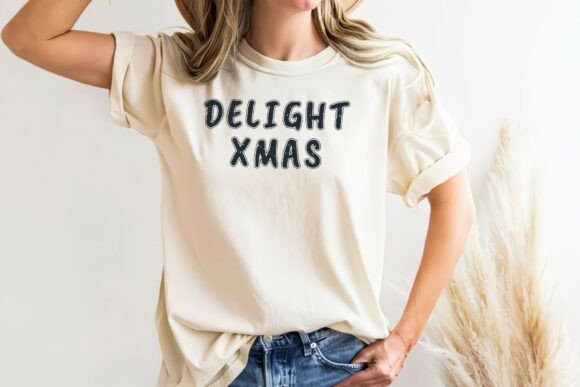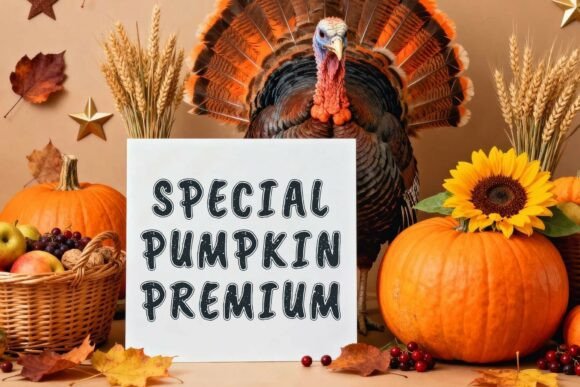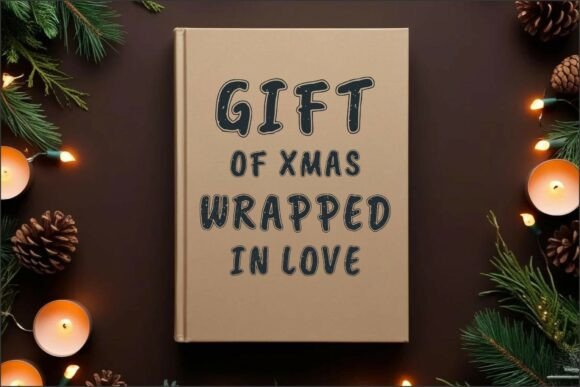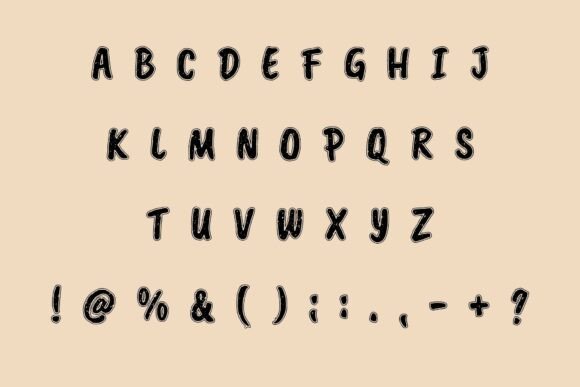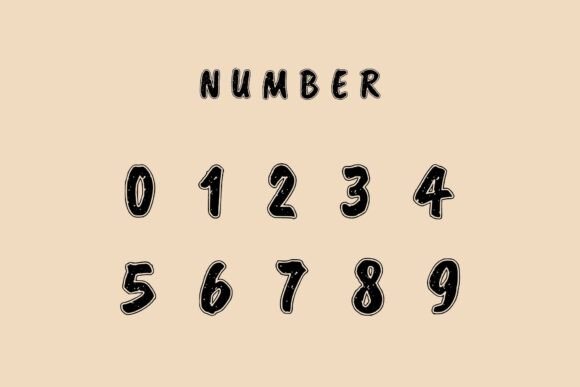
Introducing Cheerful Gliter Font: The Perfect Blend of Whimsy and Warmth
Are you tired of using the same old fonts that lack personality and charm? Look no further than Cheerful Gliter Font, a delightful and approachable display typeface that perfectly captures the spirit of cheerful spontaneity. This font is designed to bring a sense of joy and playfulness to your designs, making it perfect for projects that require a touch of whimsy and warmth.
The Unique Characteristics of Cheerful Gliter Font
Cheerful Gliter Font features thick, slightly irregular, rounded strokes that give it a genuine appearance of being drawn quickly by hand with a piece of chalk or a thick marker. This unique characteristic sets it apart from other fonts and gives it a charming, handmade feel that’s perfect for designs that require a personal touch.
The font’s subtle distress and outline effect add texture and depth, preventing the letters from feeling overly digital or uniform. This feature is especially effective in creating a sense of nostalgia and warmth, making it perfect for designs that aim to evoke a sense of comfort and familiarity.
The Benefits of Using Cheerful Gliter Font
Cheerful Gliter Font offers a welcoming, casual, and wholesome mood that’s perfect for a variety of design projects. Its unique characteristics make it especially effective in:
- Children’s books: The font’s playful and whimsical nature makes it perfect for kids’ books, educational materials, and activity sheets.
- School projects: The font’s friendly and approachable feel makes it ideal for school projects, presentations, and posters.
- Artisanal food packaging: The font’s handmade feel and warm personality make it perfect for artisanal food packaging, labels, and branding.
- Creative blog headers: The font’s unique and eye-catching design makes it perfect for creative blog headers, titles, and section headings.
- Branding: The font’s warm and welcoming personality makes it perfect for branding projects that aim to convey warmth, authenticity, and lighthearted fun.
Bringing Joyful Craft to Your Typography
Cheerful Gliter Font truly brings an element of joyful craft to your typography. Its unique characteristics and charming personality make it perfect for designers and crafters who want to add a touch of whimsy and warmth to their designs.
Whether you’re designing a children’s book, creating a brand identity, or crafting a blog header, Cheerful Gliter Font is the perfect choice. Its versatility and charm make it a valuable addition to any designer’s toolkit.
Tips for Using Cheerful Gliter Font
Here are some tips for getting the most out of Cheerful Gliter Font:
- Use it as a display font: Cheerful Gliter Font is perfect for headlines, titles, and section headings.
- Pair it with contrasting fonts: Pair Cheerful Gliter Font with contrasting fonts to create visual interest and hierarchy.
- Experiment with colors: The font’s warm personality makes it perfect for designs that feature bright, bold colors.
- Use it in combination with illustrations: The font’s handmade feel makes it perfect for designs that feature illustrations, doodles, or hand-drawn elements.
In conclusion, Cheerful Gliter Font is a delightful and approachable display typeface that’s perfect for designers and crafters who want to add a touch of whimsy and warmth to their designs. Its unique characteristics, charming personality, and versatility make it a valuable addition to any designer’s toolkit.
Whether you’re designing a children’s book, creating a brand identity, or crafting a blog header, Cheerful Gliter Font is the perfect choice. So why not give it a try and see how it can bring a sense of joy and playfulness to your designs?